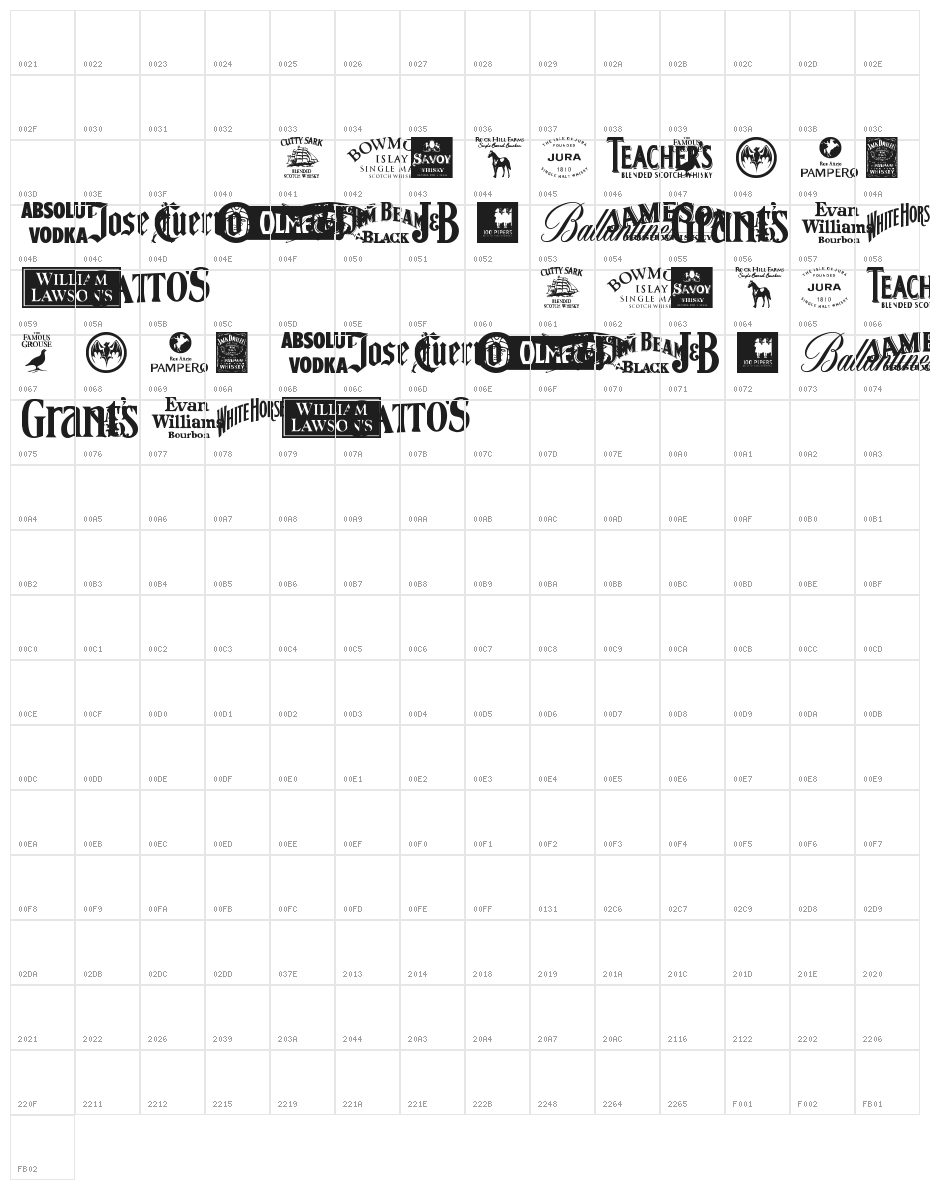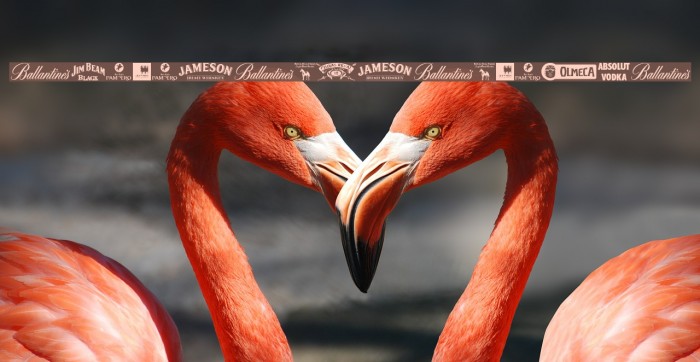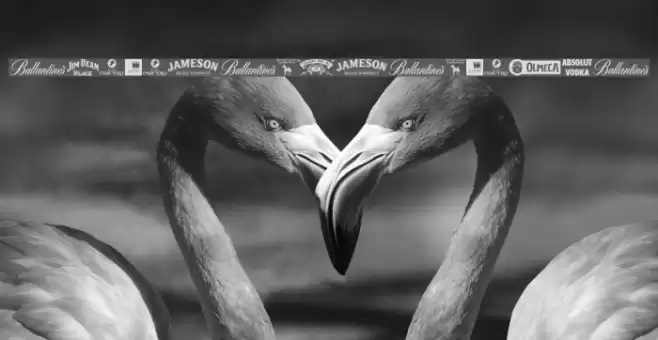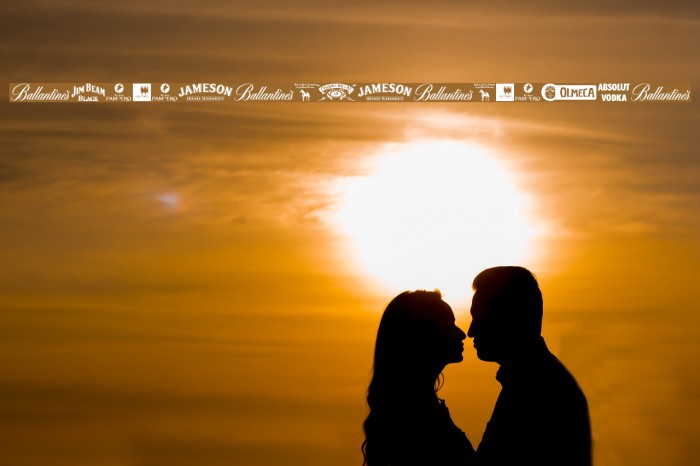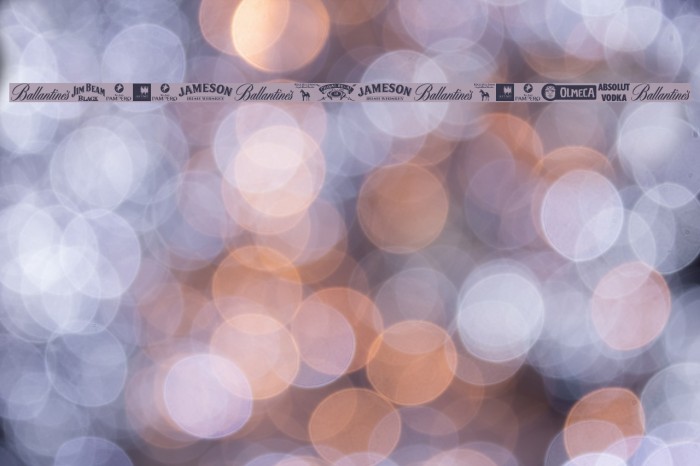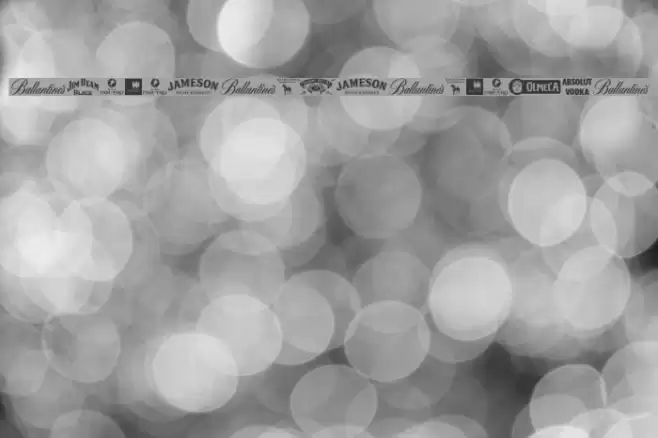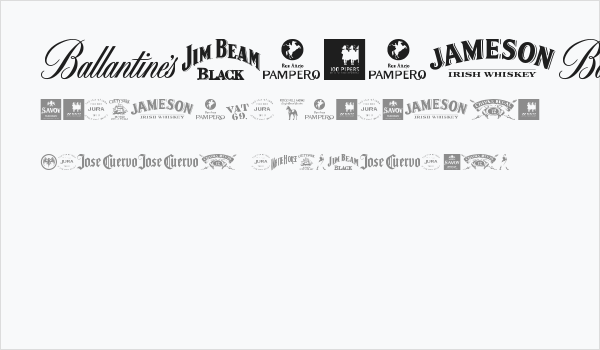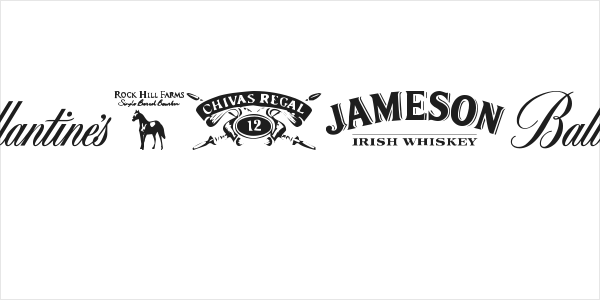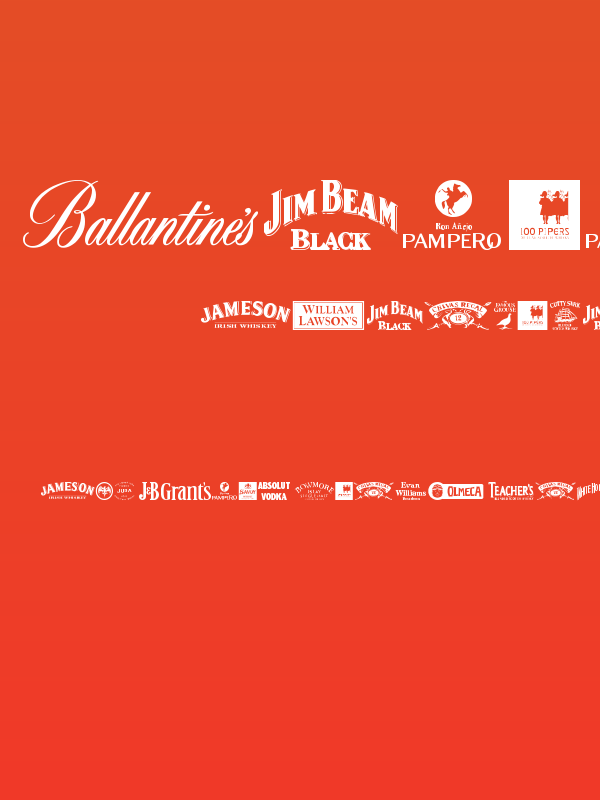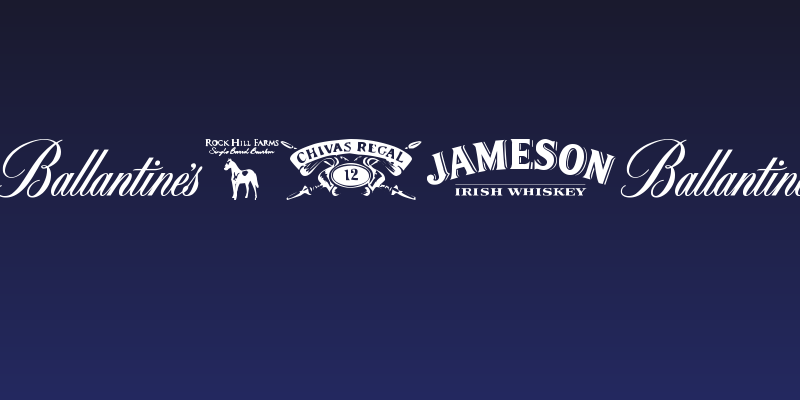
Spiritsdotsdrinks Font
Spiritsdotsdrinks Description
This image contains a variety of brand logos, each using distinct custom logotype designs rather than a single cohesive font. The styles range from bold sans-serif to ornate serif and script, with some featuring unique decorative elements and custom lettering tailored to each brand's identity.
| Overall Style | Decorative, Brand-specific |
| Use Case | Logos, Branding |
| Proposed Projects | Branding, packaging, advertising, promotional materials. |